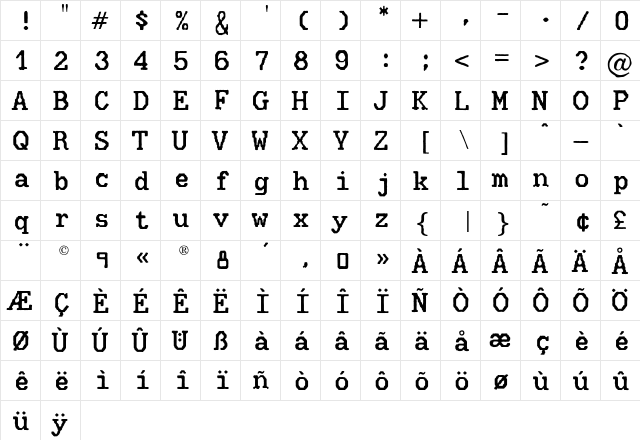
Mainframe-CN Trois Six Regular
Design Context for Mainframe-CN Trois Six Typeface
Mainframe-CN Trois Six offers clean, dependable letterforms without strong stylistic allegiance, making it a practical choice for designers who need flexibility.